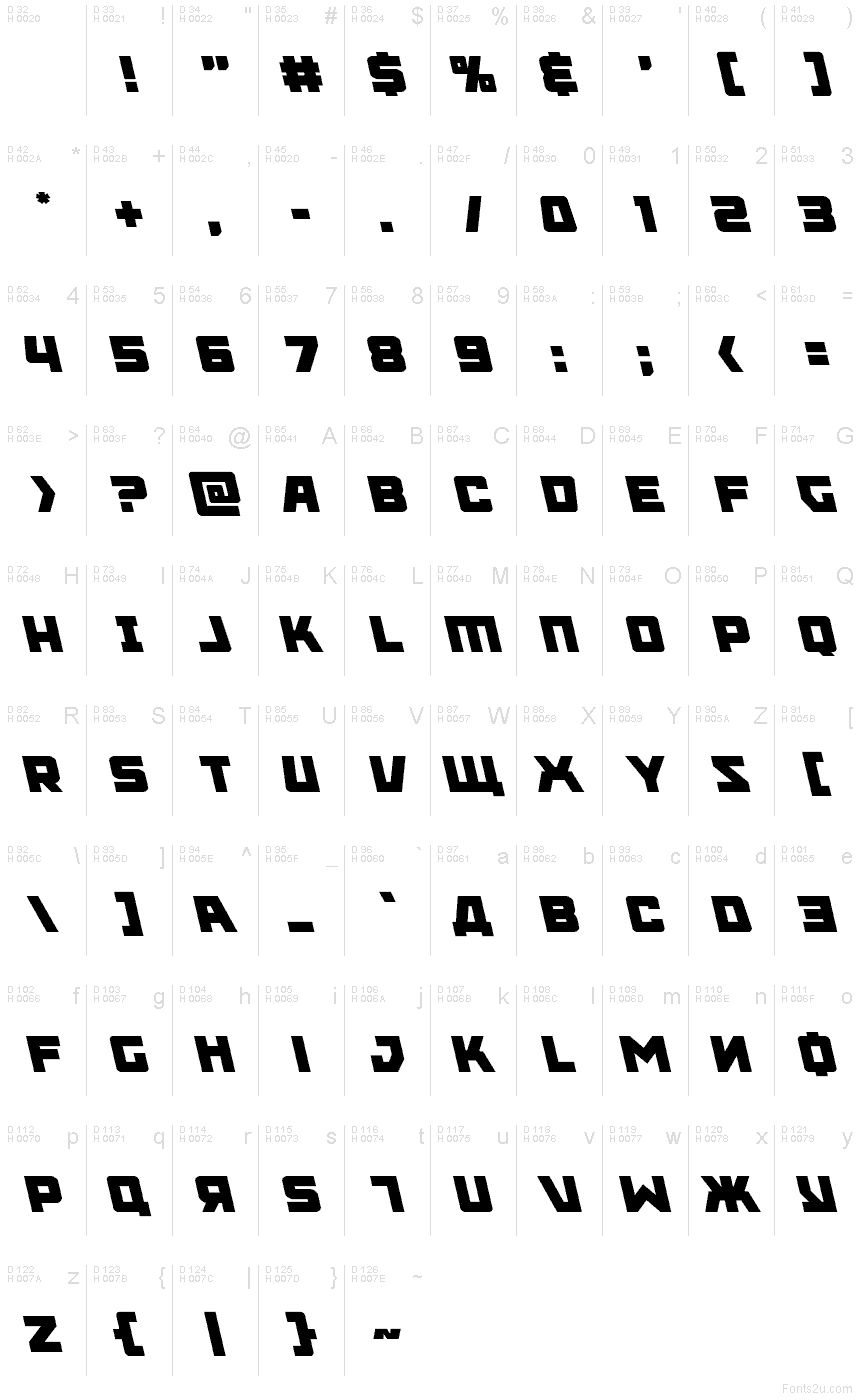
Kremlingrad Leftalic
Kremlingrad Leftalic font by Iconian Fonts is a free Russian‑style display font. Part of the Kremlingrad family, it leans hard to the left with blocky, chiseled geometry and squared counters that feel forged and industrial. The angular cuts and compact rhythm create built‑in motion—like letters stamped from steel plates—giving headlines instant grit and authority.
Using Kremlingrad Leftalic, you’ll get punchy results for game titles, esports branding, propaganda‑style posters, industrial packaging, album covers, and bold event flyers. This free font shines when set big with tight tracking, letting those heavy diagonals lock together. Pair it with a clean grotesk for body copy to balance the weight and keep the message sharp.